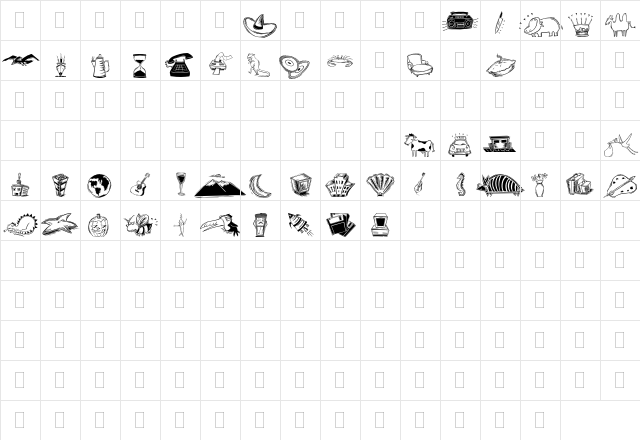
DF Inspirations One Plain
Design Context for DF Inspirations One Typeface
DF Inspirations One is a composed and adaptable typeface that performs quietly and consistently across a wide range of design contexts.